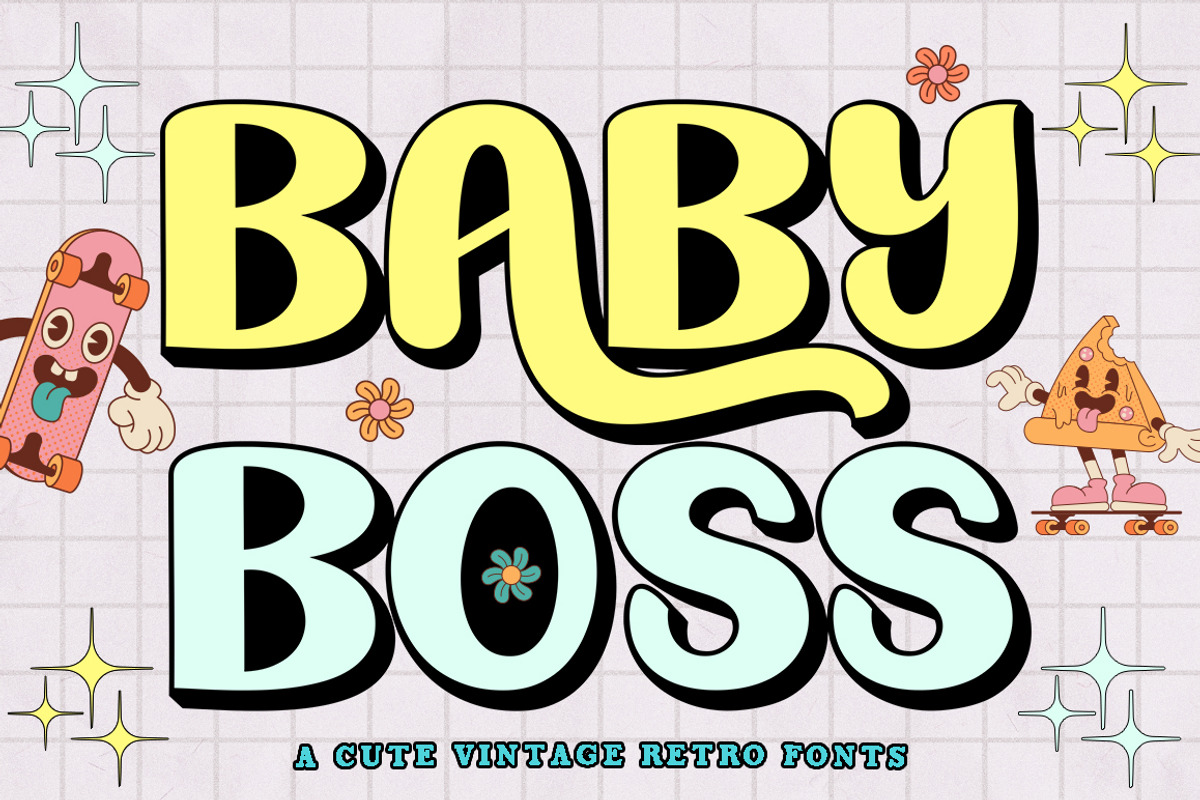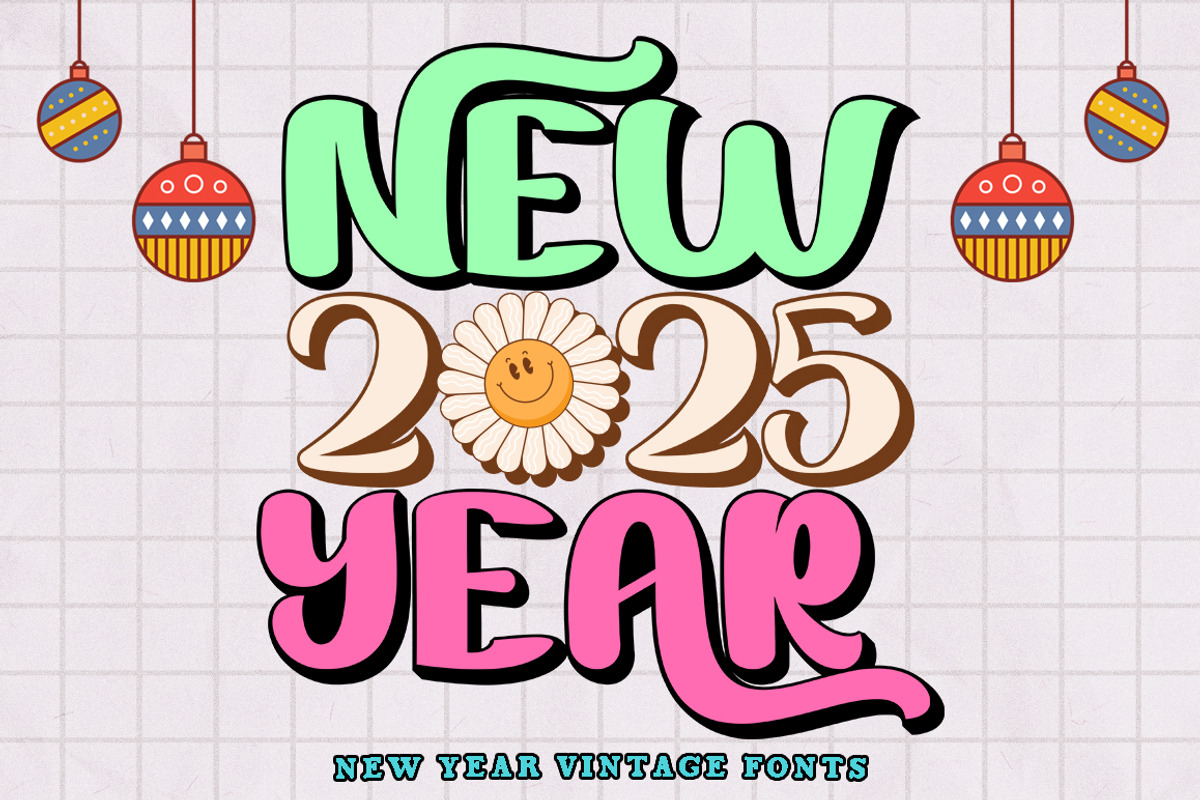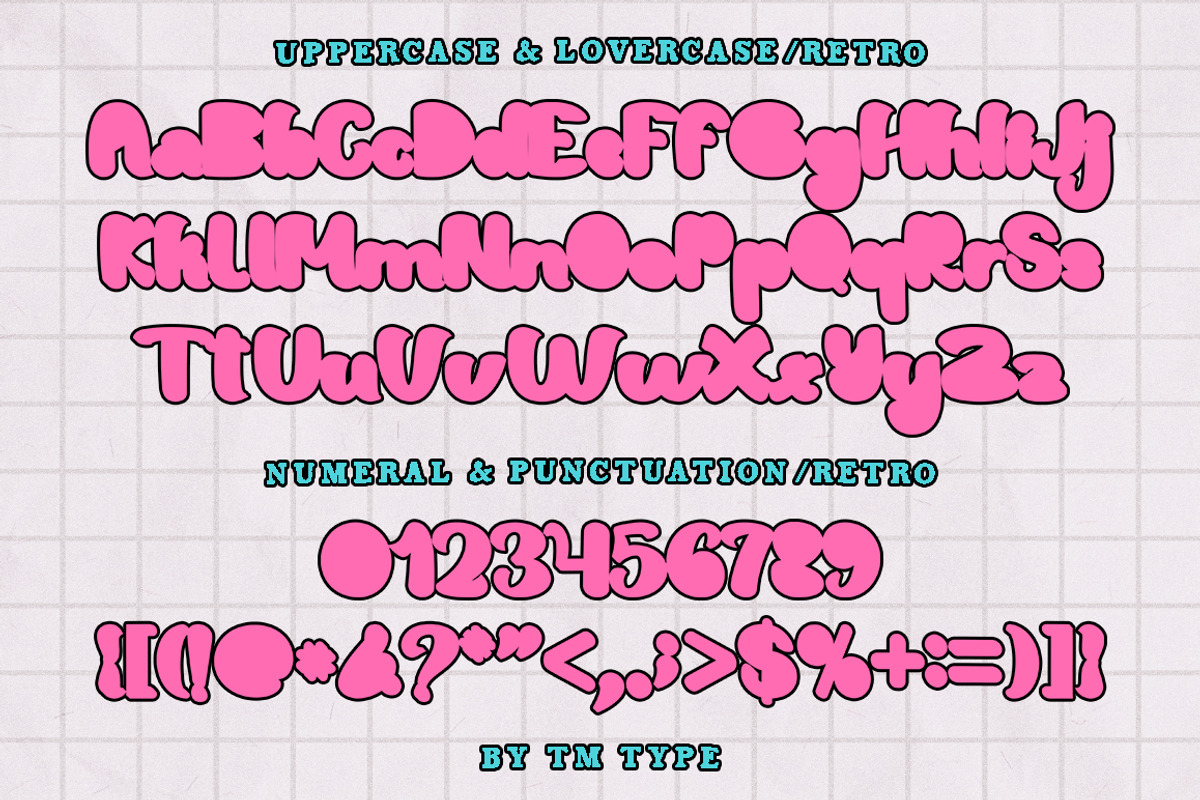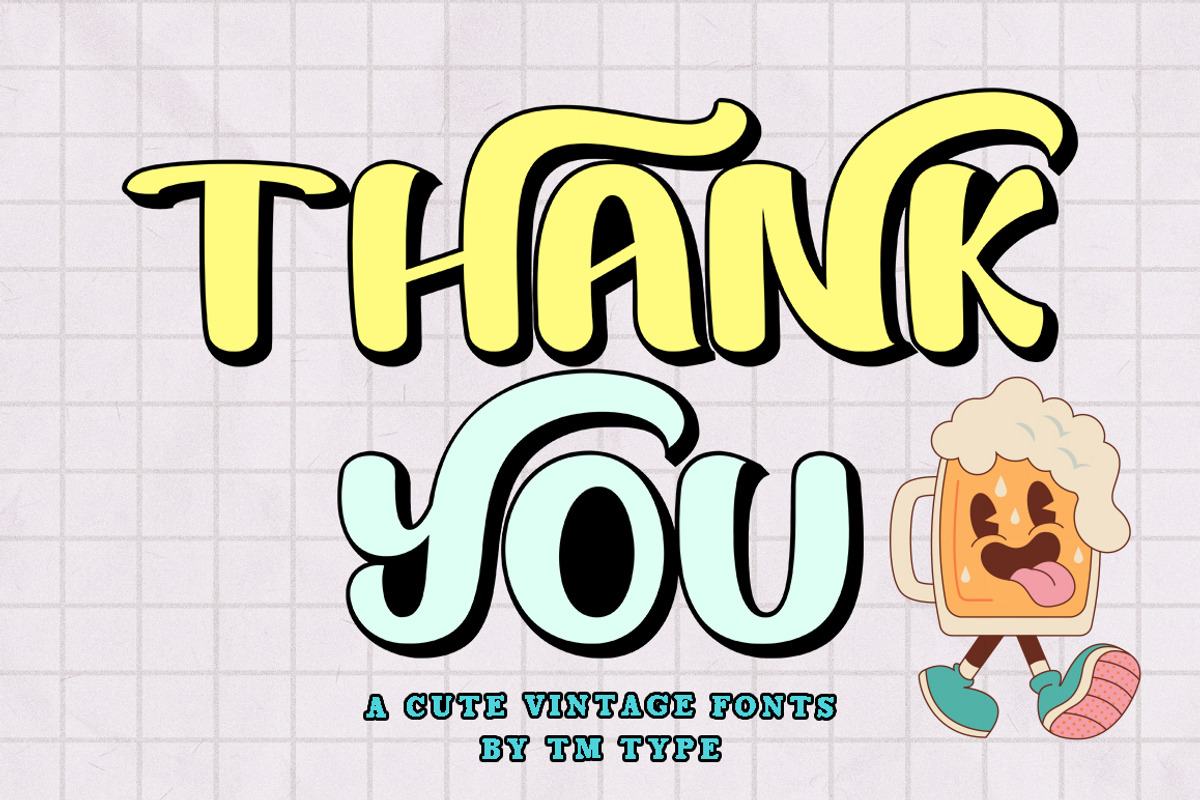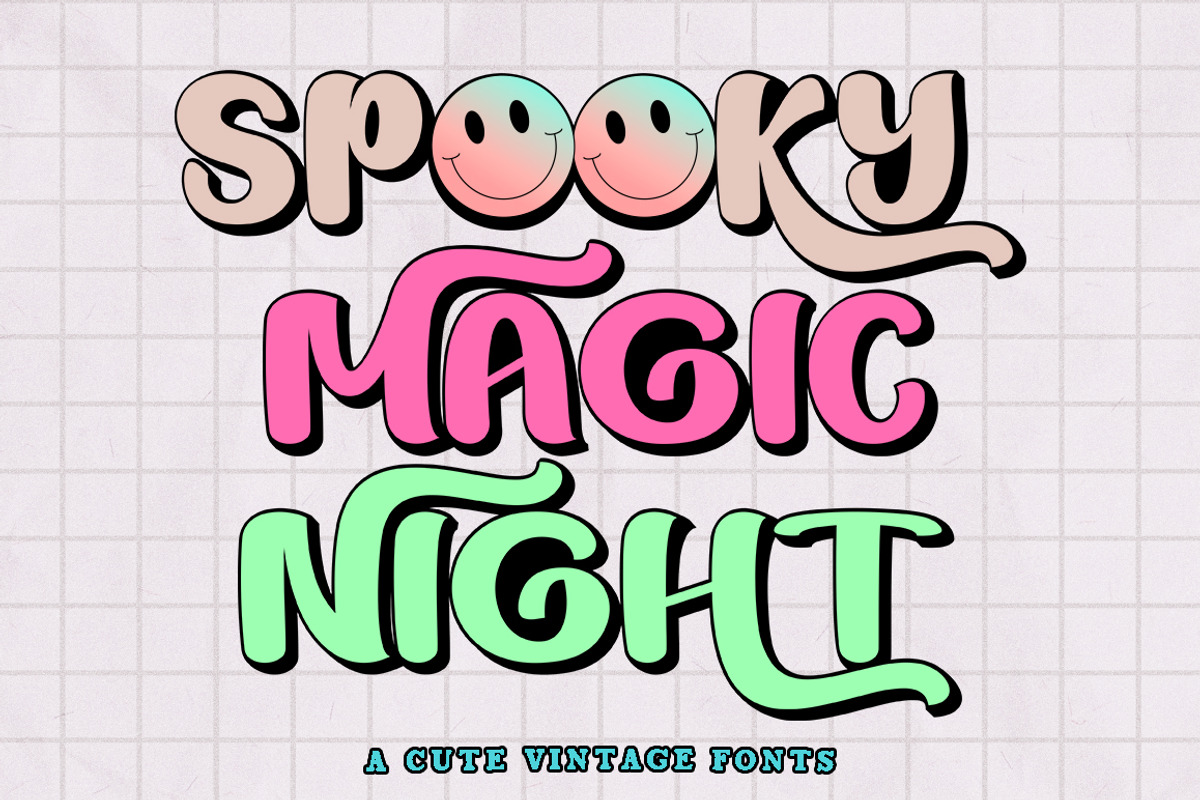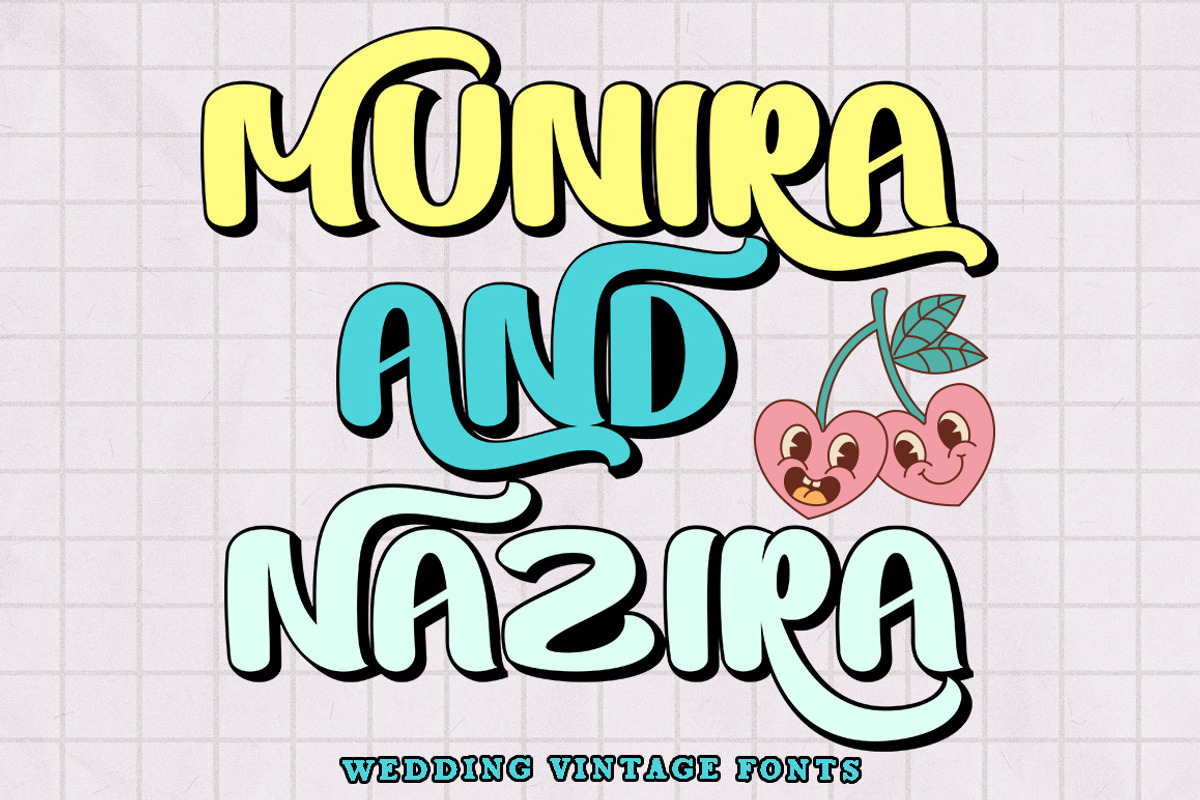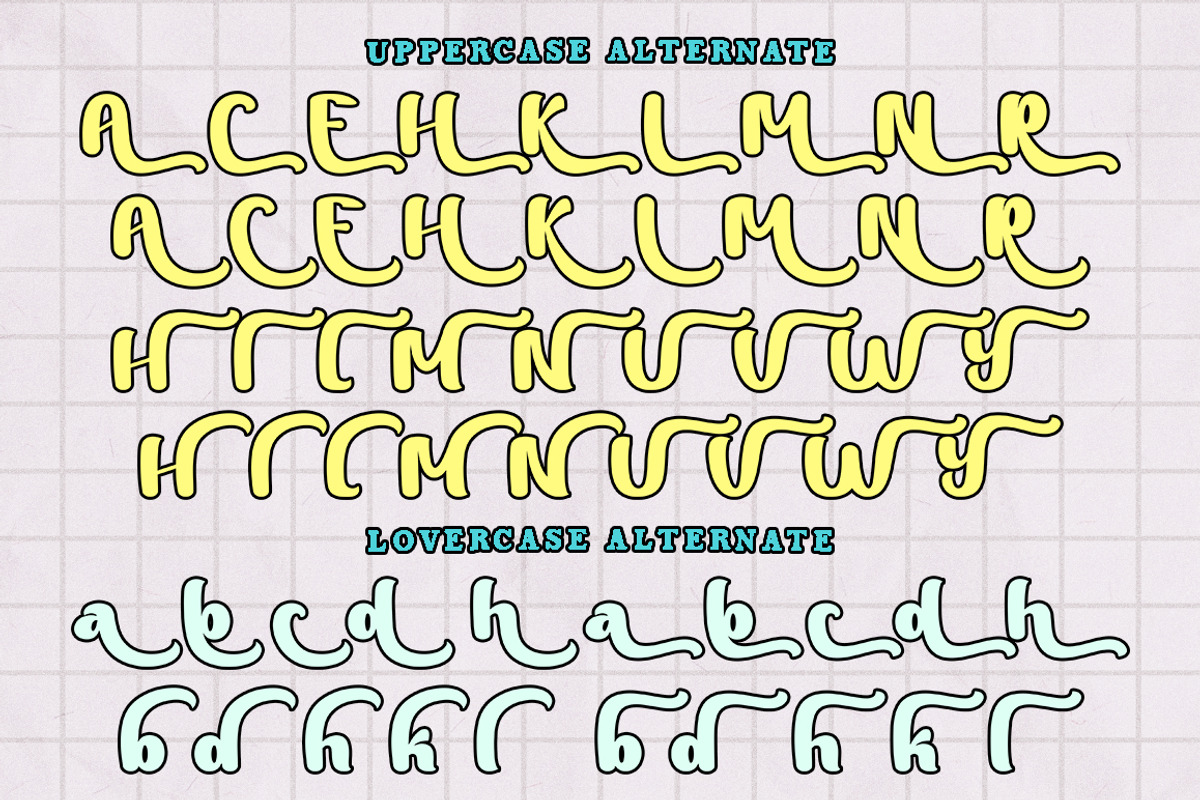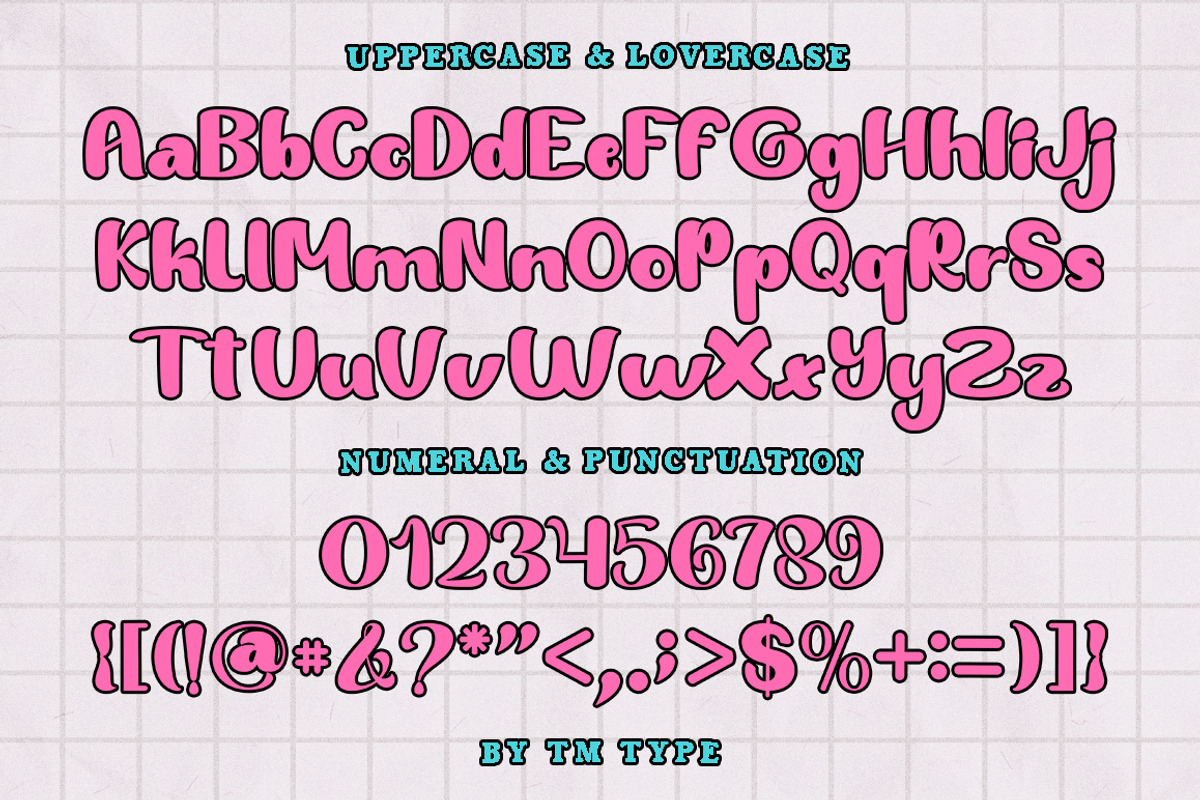
Baby Boss
Baby Boss | ReBtro Bold Display, from TM Type, suitable for any projects such as: logos, branding projects, homeware designs, product packaging, mugs, quotes, posters, shopping bags, t-shirts, book covers, name card, invitation cards, greeting cards, label, photography, watermark, special events, and all your other lovely projects that need a Retro Bold Display taste.